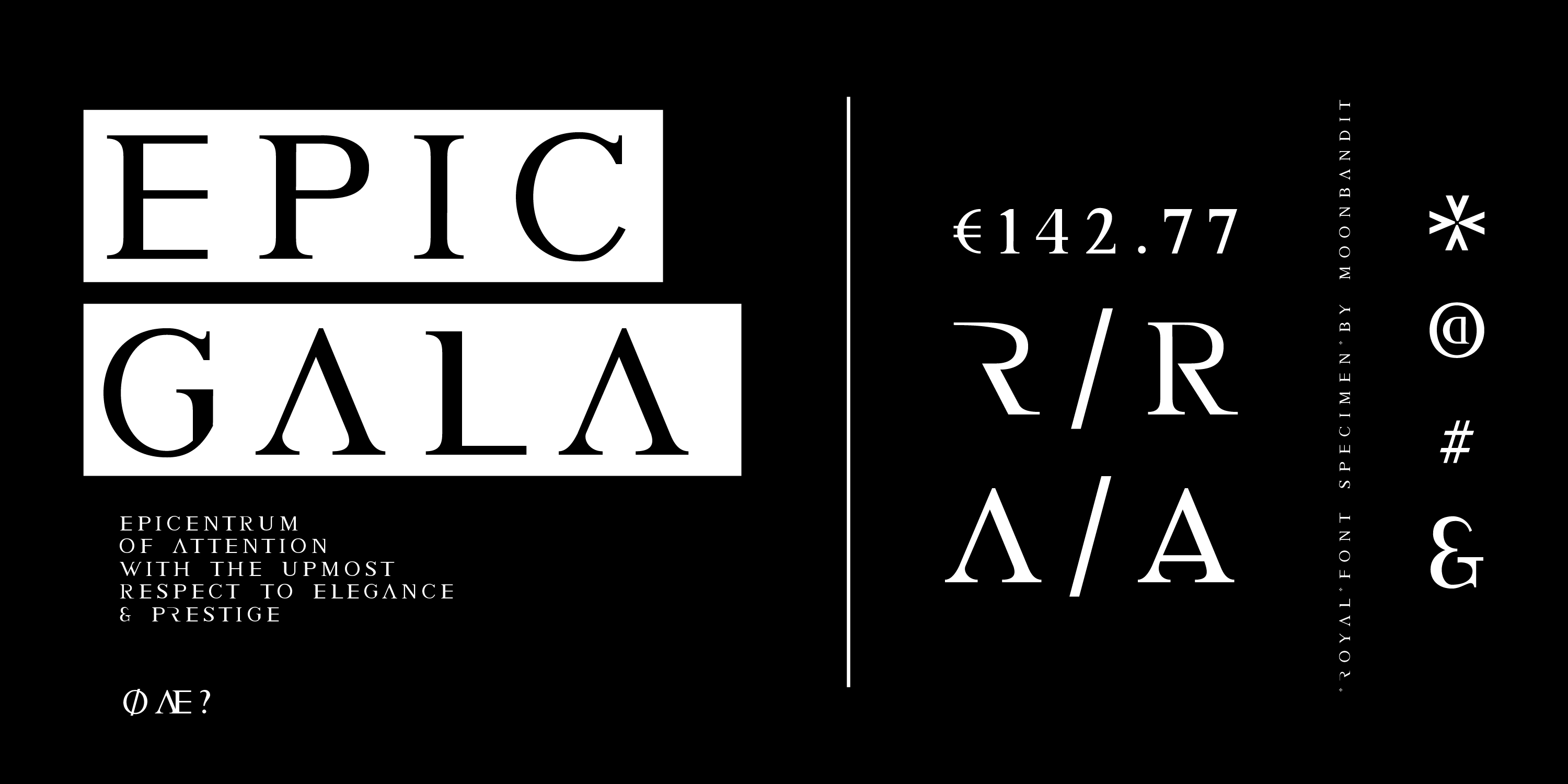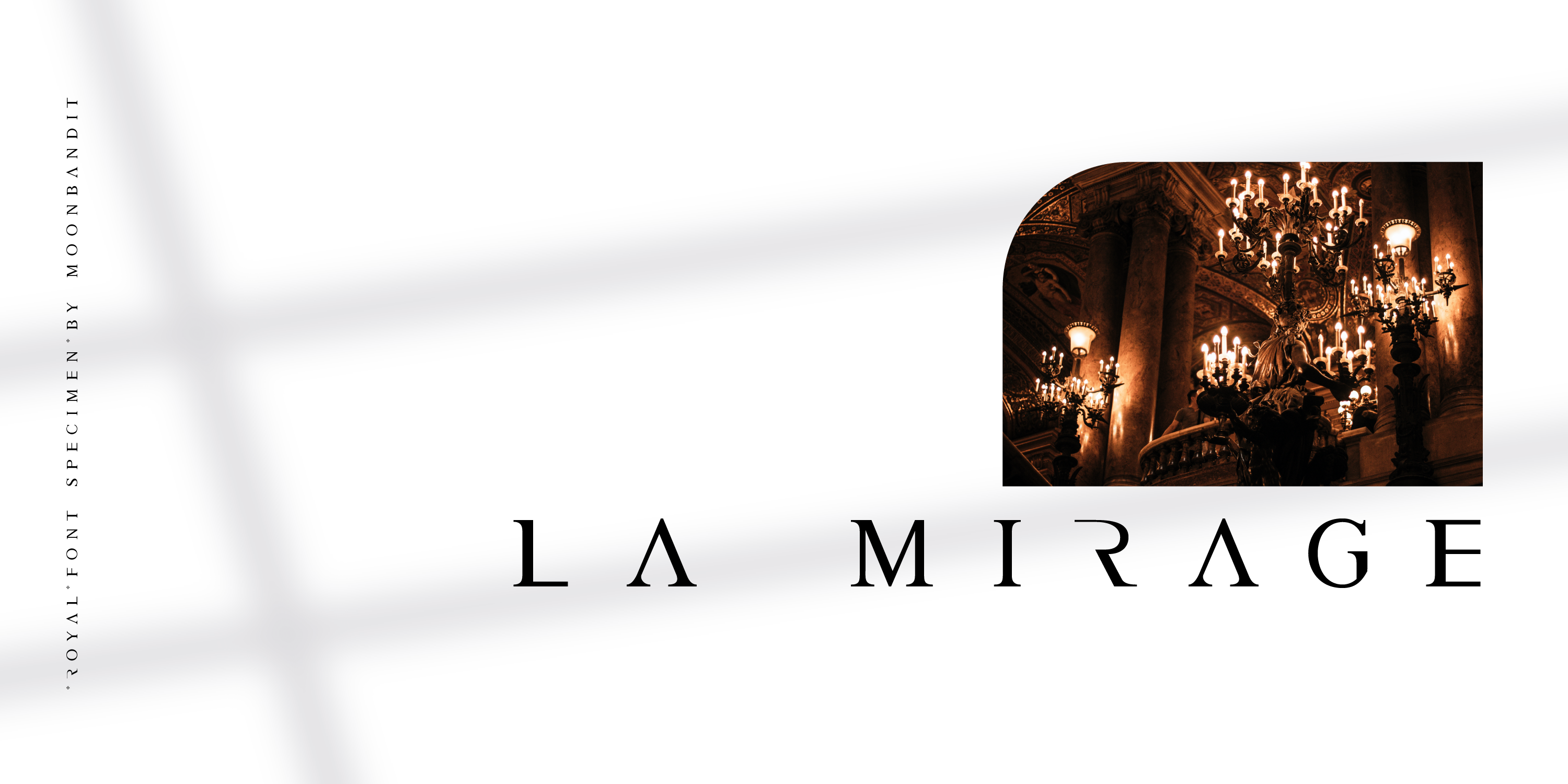
MBF Royal
THE ELEGANCE OF THE ROYALTIES IS INCOMPARABLE
Royal, a classy serif font with a modern twist. This all uppercase all elegant and premium looking typeface is perfect for titling, poster, invitation, headline, and many more.